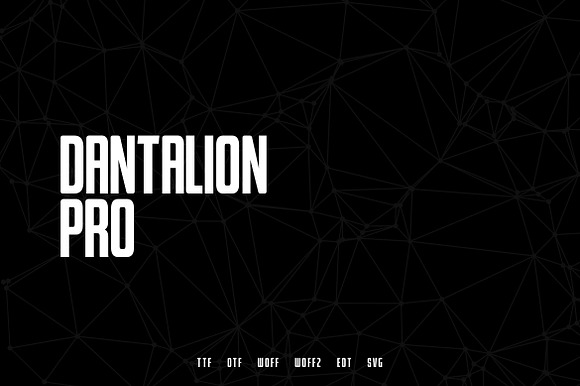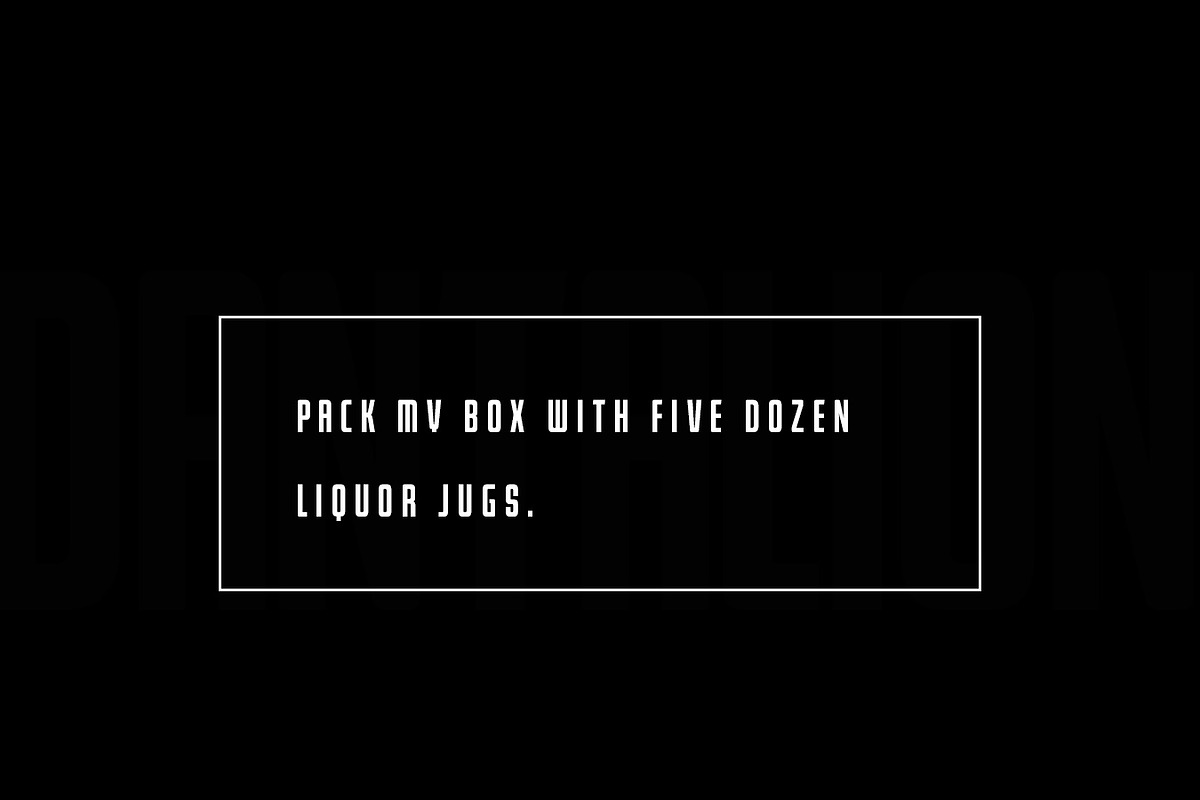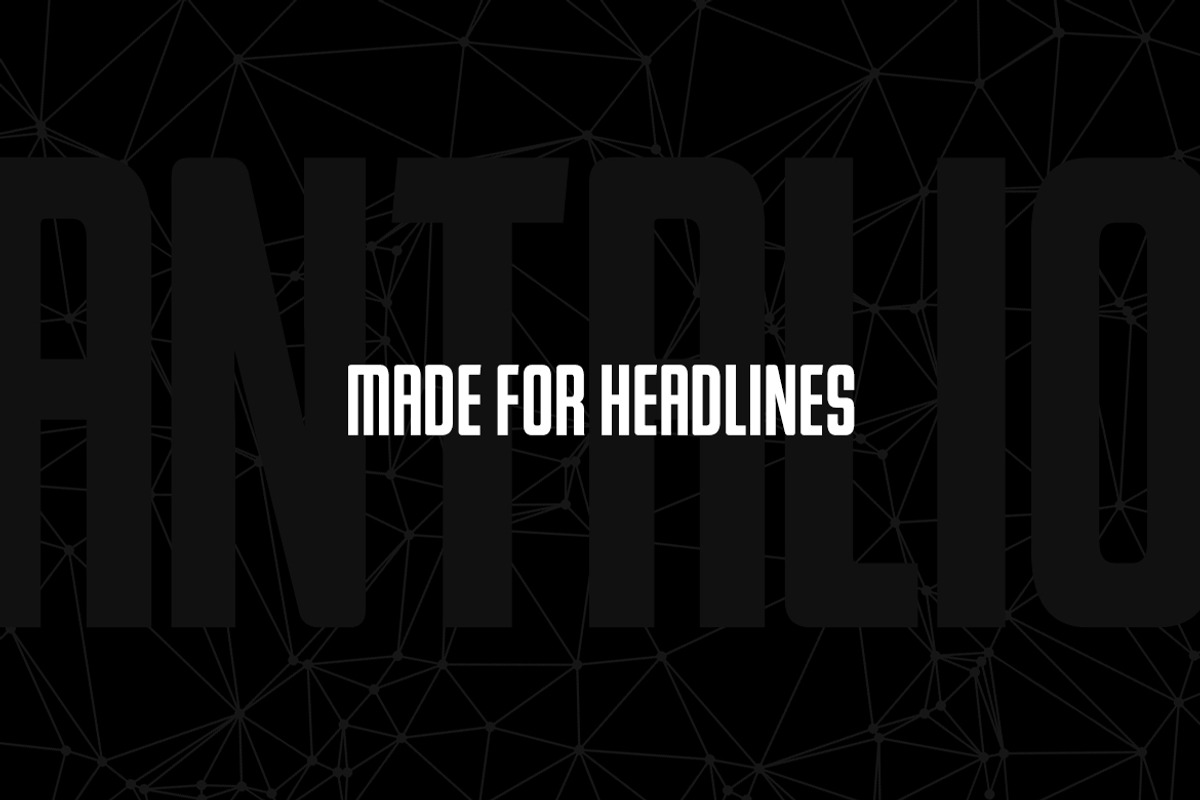
Dantalion - Modern Webfont
Dantalion Pro Typeface
Dantalion Pro is a modern Sans Serif typeface very much suitable for Film Posters, headlines, Block letter, Subheading, Logo Designs, Big Banners. Creative & Decorative Typography Web Designs.
Dantalion Pro is perfectly suited for eye-catching headlines. Its clean appearance and mid-weight make it a wonderful candidate for being paired with more decorative, elaborate subheading fonts.
Why Dantalion - Modern Webfont is worth a look
Dantalion - Modern Webfont by Webhance Studio fits naturally into Branding, posters, packaging, typography.